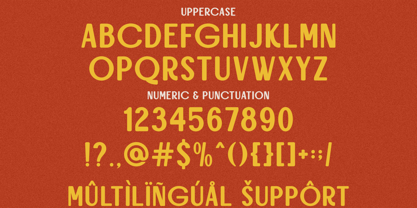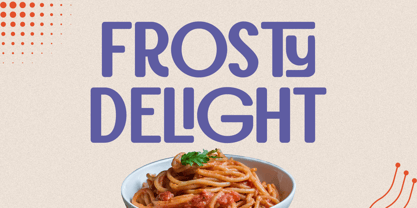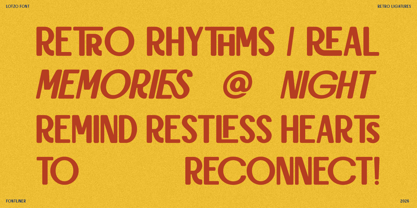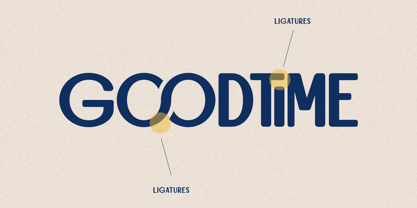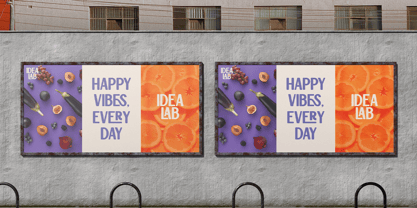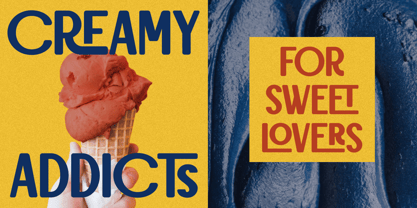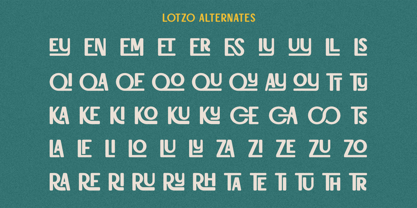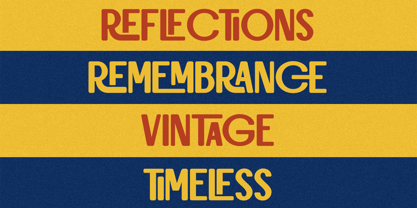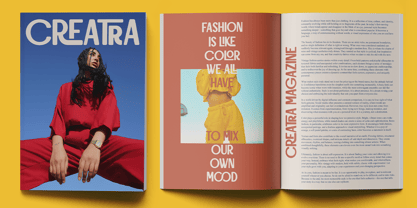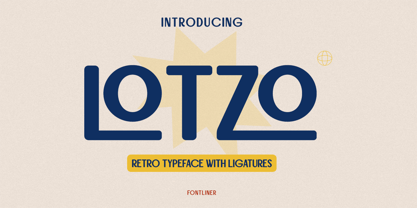
Lotzo
by Font Liner
The Lotzo Font Family was designed by Ghina Luthfiarieska and published by Font Liner. Lotzo contains 2 styles and family package options. More about this family
Lotzo is a bold retro typeface that blends nostalgic charm with a clean, modern edge. Inspired by vintage signage and classic branding, it delivers a strong visual identity through its smooth curves, geometric balance, and distinctive ligatures. Every letter is crafted to feel both playful and confident, making it perfect for designs that want to stand out without feeling outdated.
Designed for versatility, Lotzo works beautifully across a wide range of creative projects. Whether you're building logos, branding systems, posters, packaging, or social media visuals, this typeface brings a unique retro vibe that feels fresh and relevant. The ligatures add an extra layer of character, allowing designers to create eye-catching typography with minimal effort.
Lotzo is ideal for designers looking to capture a retro aesthetic while maintaining clarity and readability. It performs exceptionally well in both headlines and display settings, making it a reliable choice for branding, editorial layouts, and digital content that demands personality and impact.
- Stylistic Ligatures
- Multilingual Support
Designers: Ghina Luthfiarieska
Foundry: Font Liner